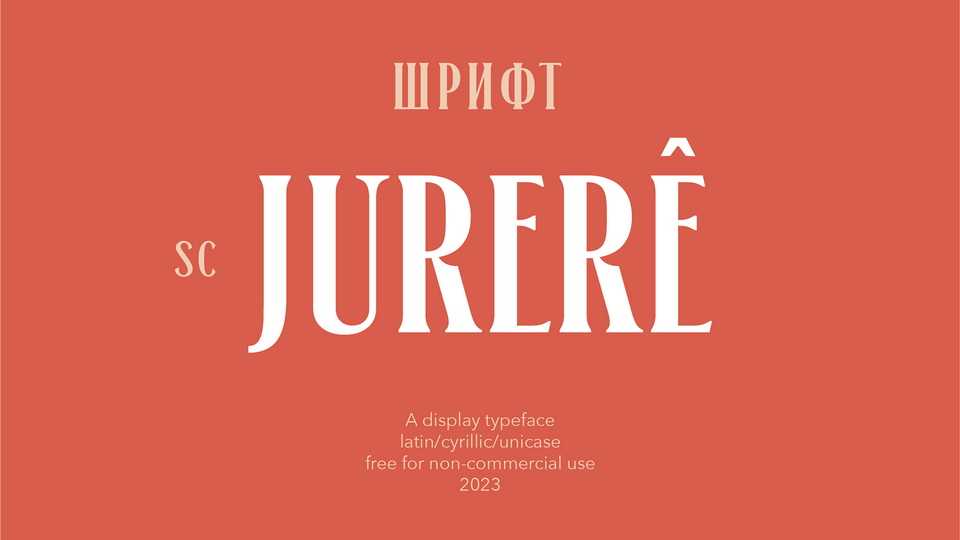
Download SC Jurerê font, a contrast display serif typeface with a friendly face. Contains Cyrillic and Latin alphabets with basic diacritics. SC Jurerê is suitable for posters, headlines, packaging.
Designer: Stanislav Chiganov